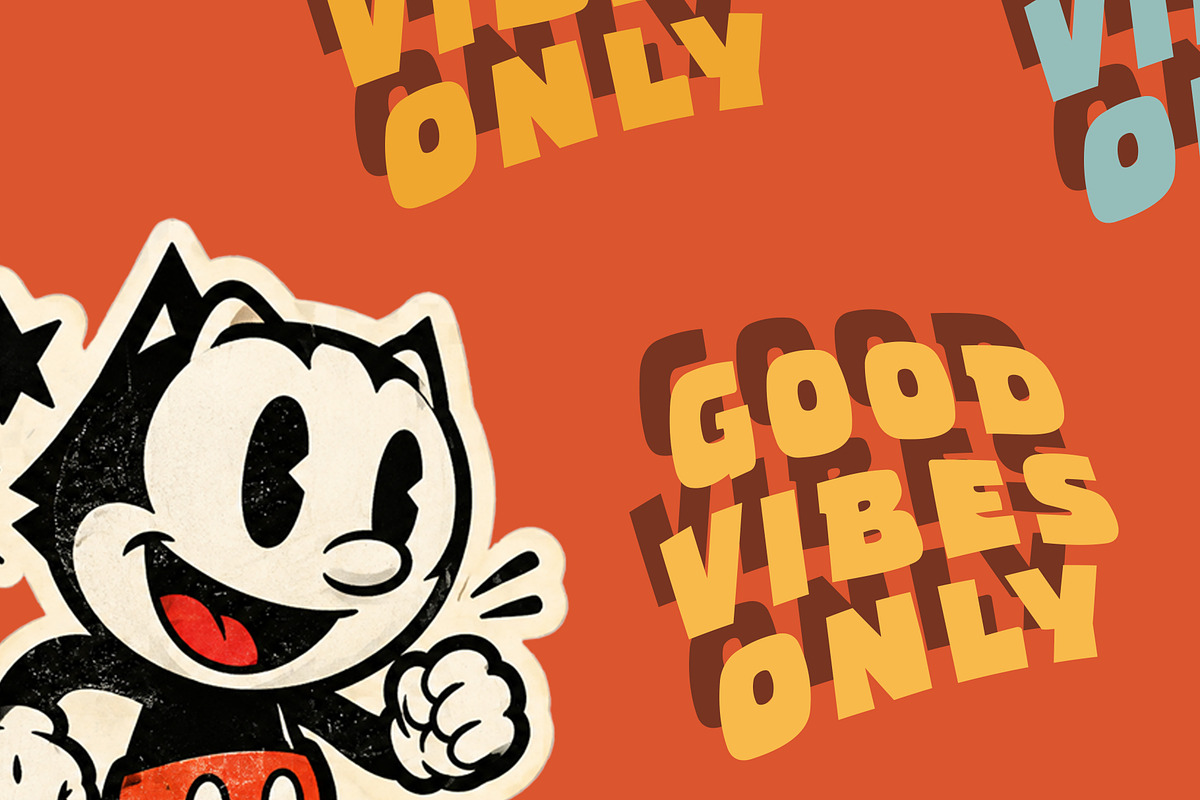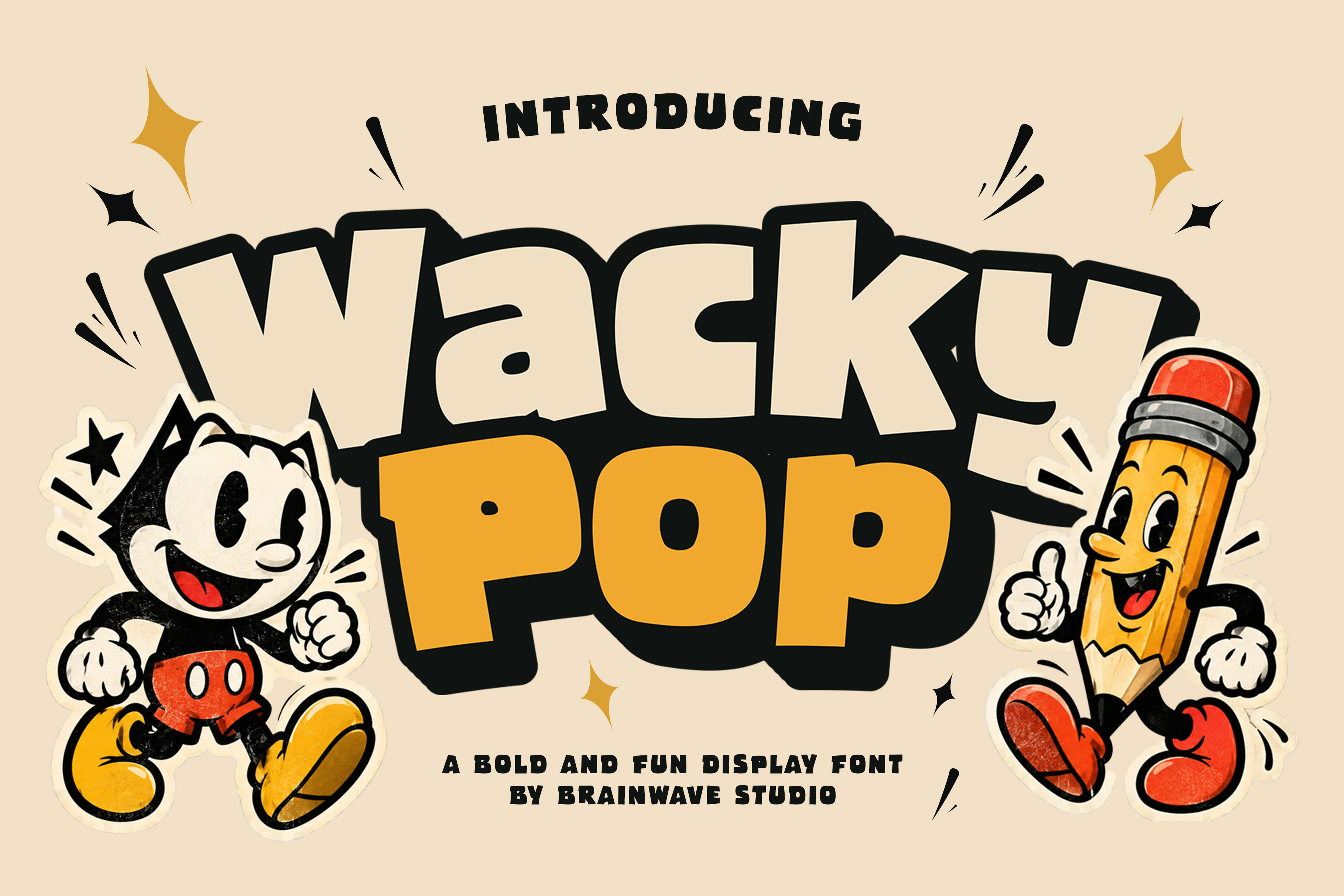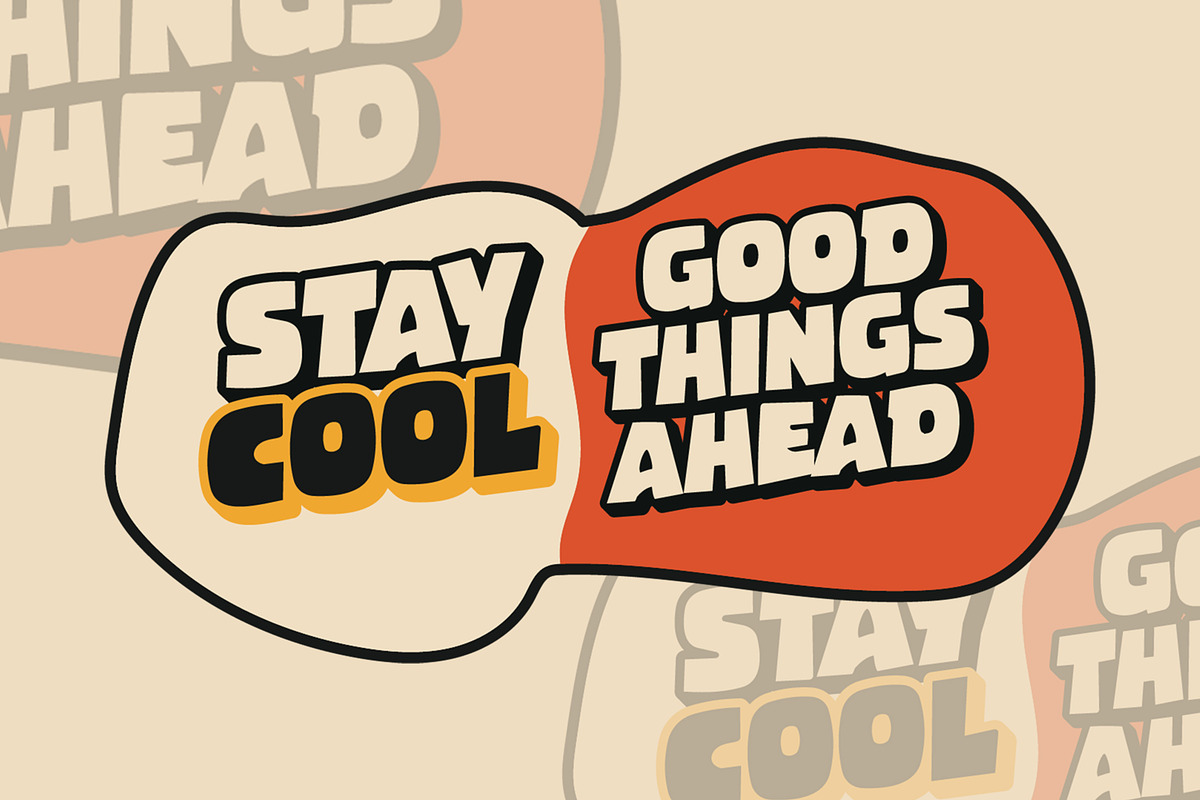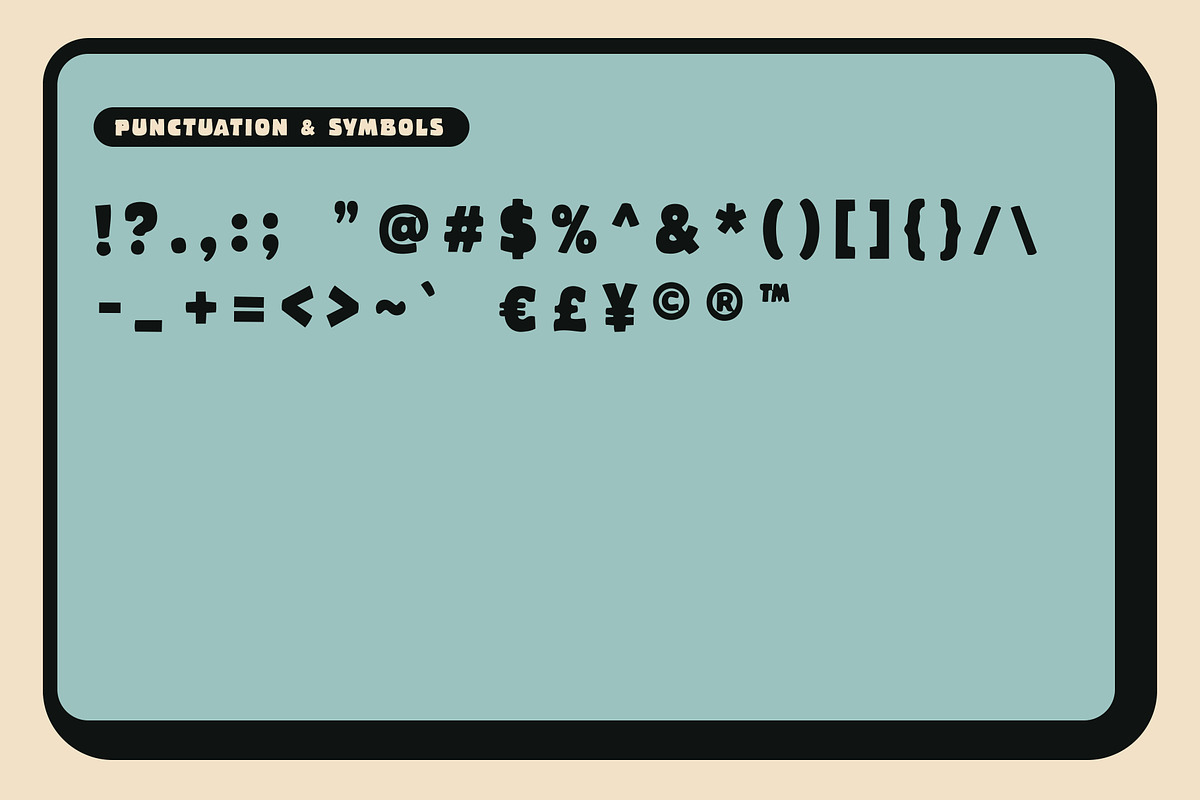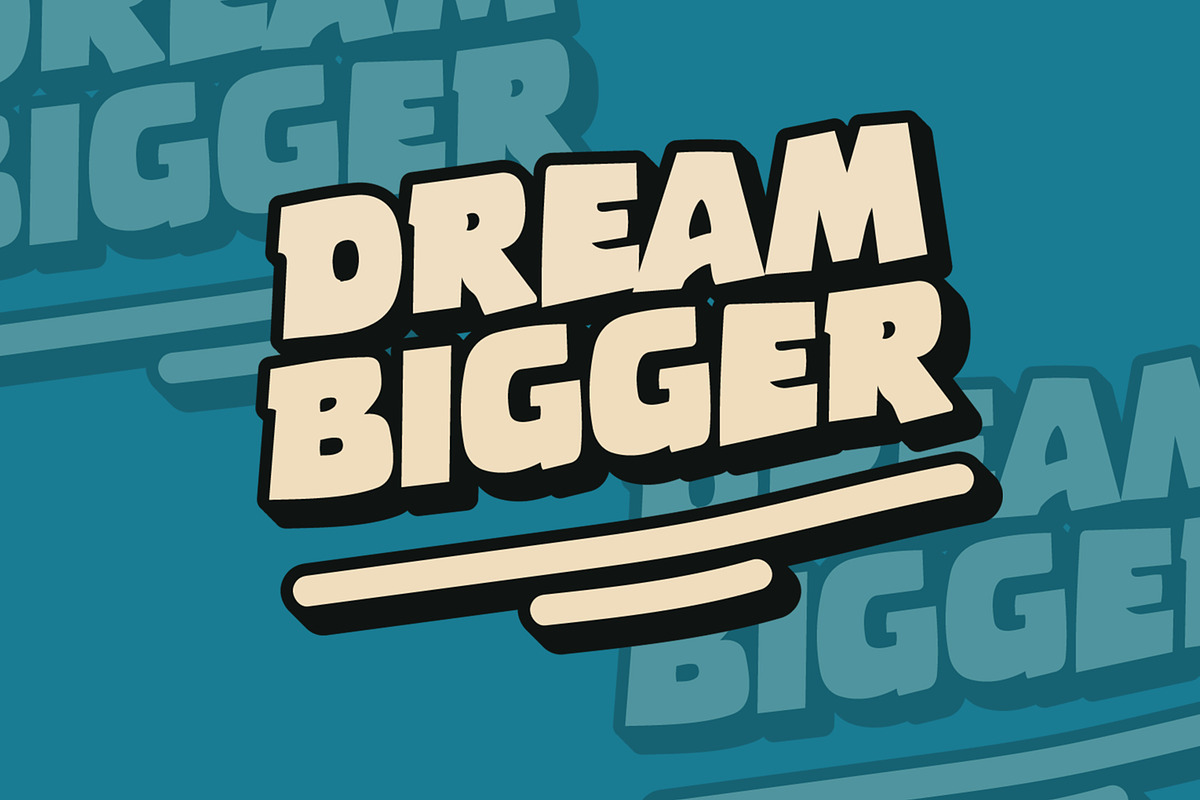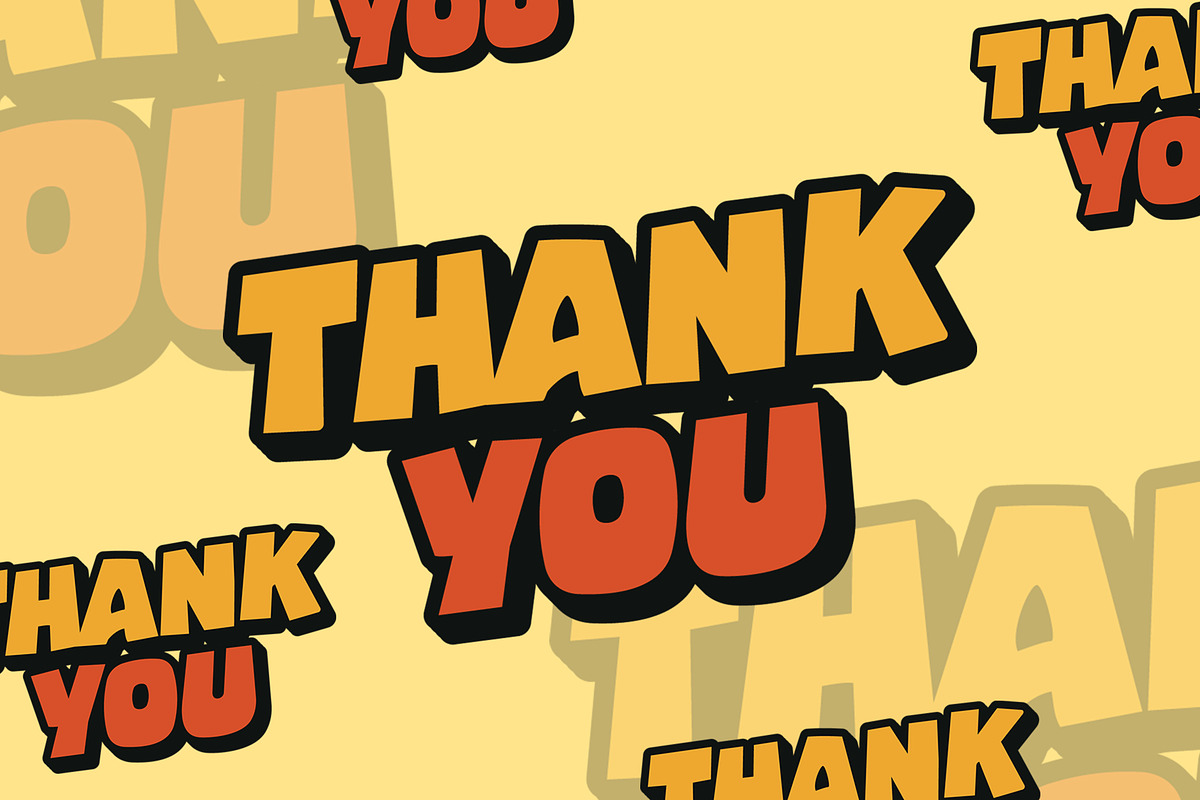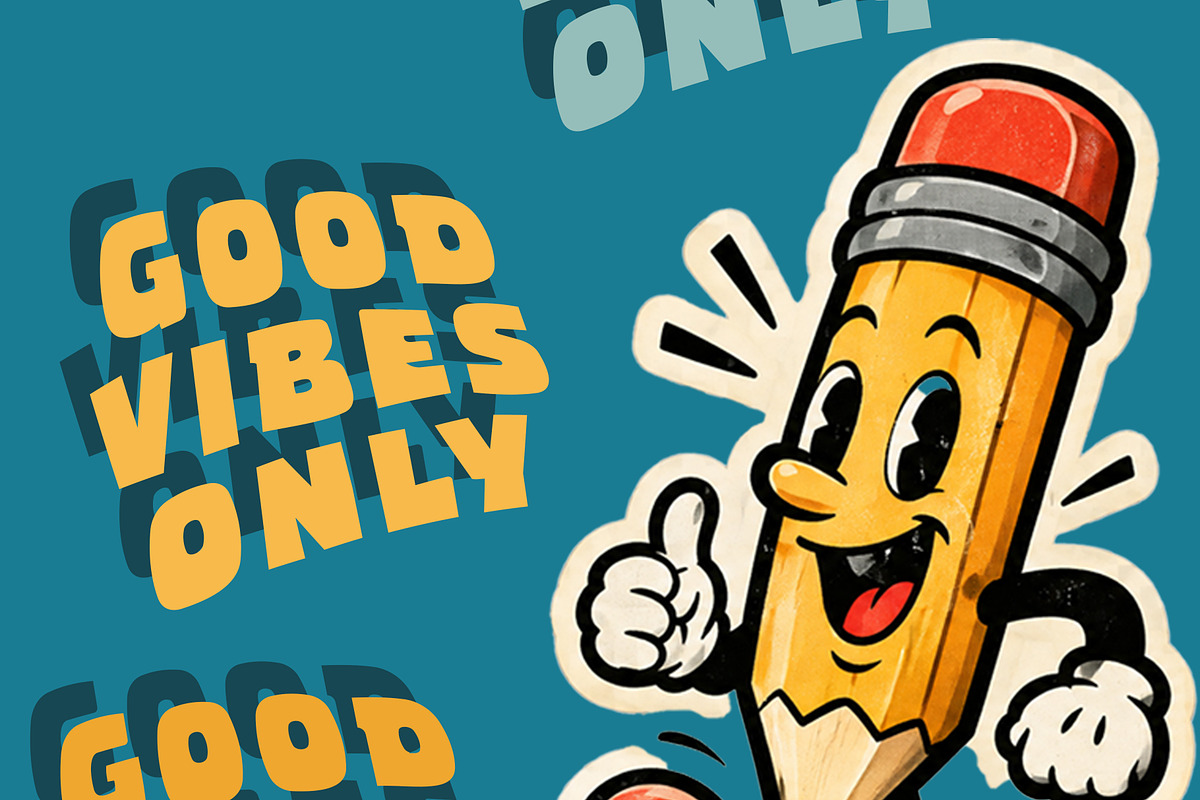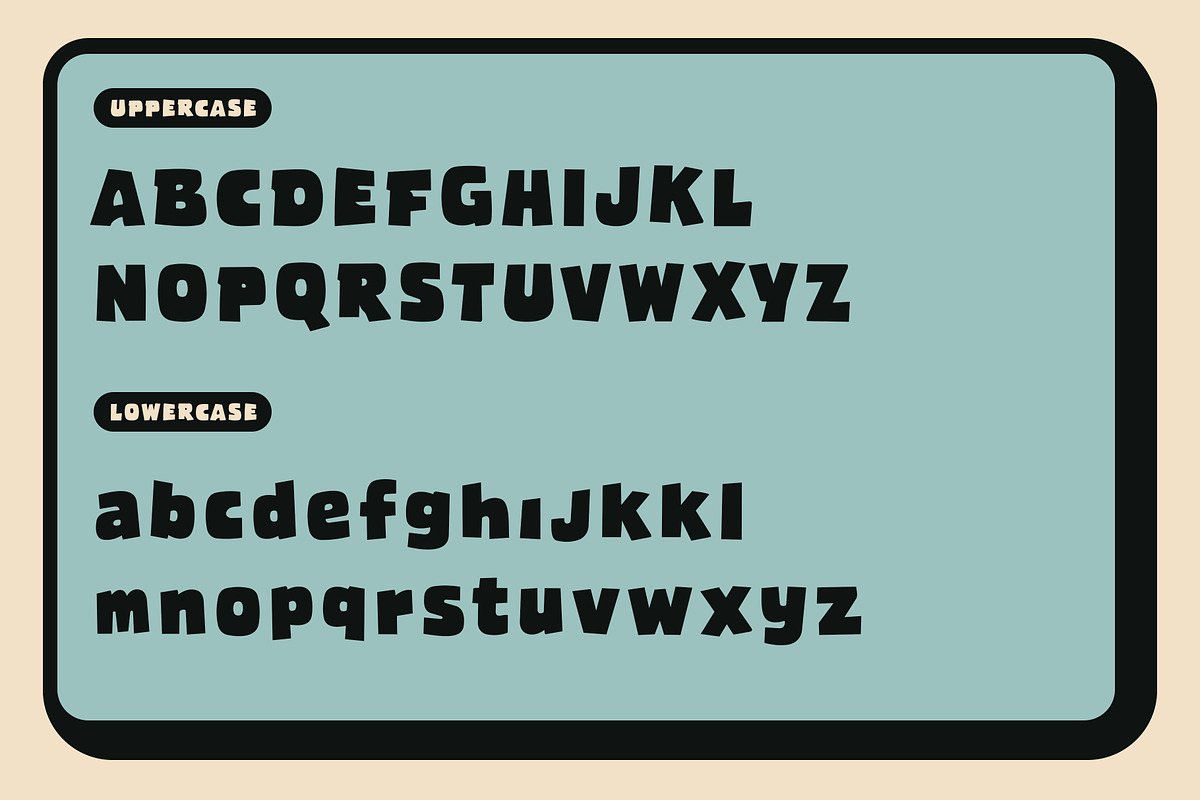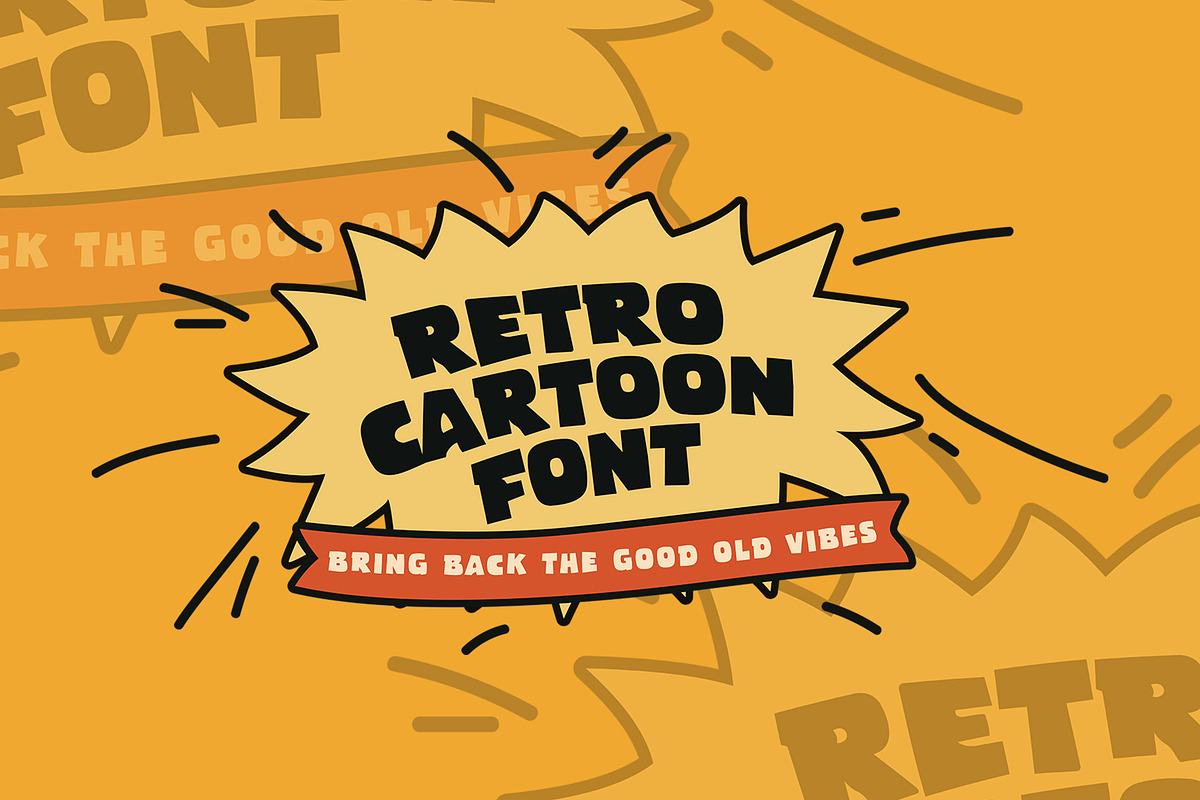
Wacky Pop – Cartoon Display Font
Wacky Pop is a bold and playful retro cartoon font inspired by classic comic lettering and vintage designs. With its chunky shapes and fun personality, it is perfect for logos, posters, packaging, stickers, T-shirt designs, branding, and creative projects.
Bring your designs to life with the fun and nostalgic style of Wacky Pop!